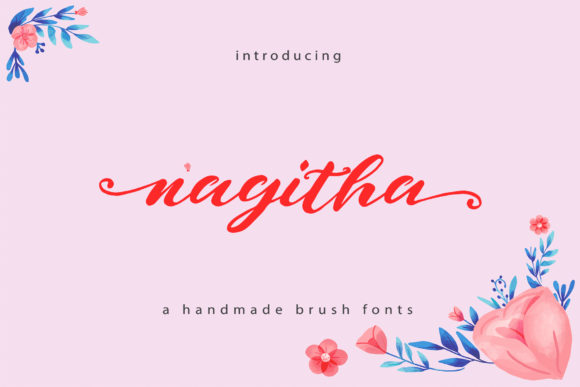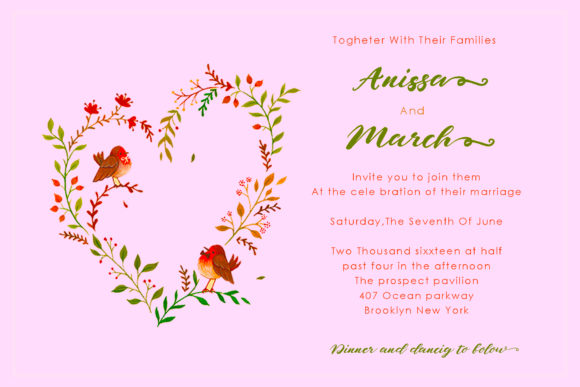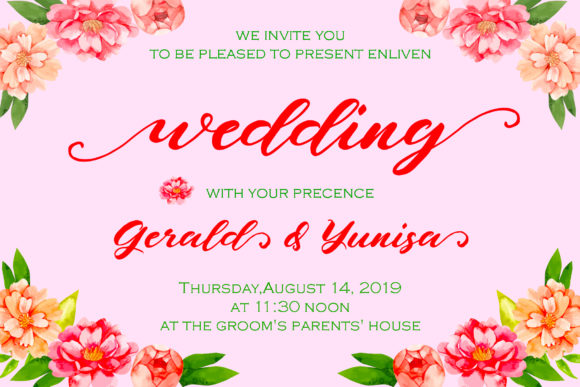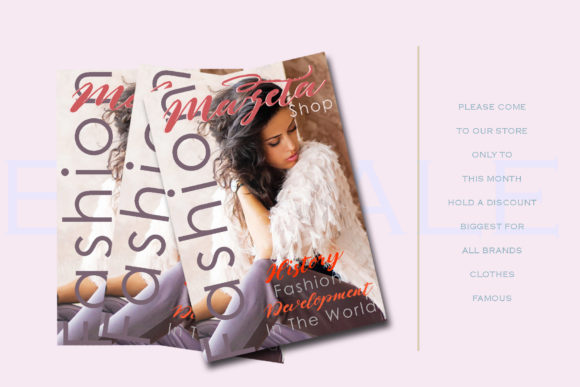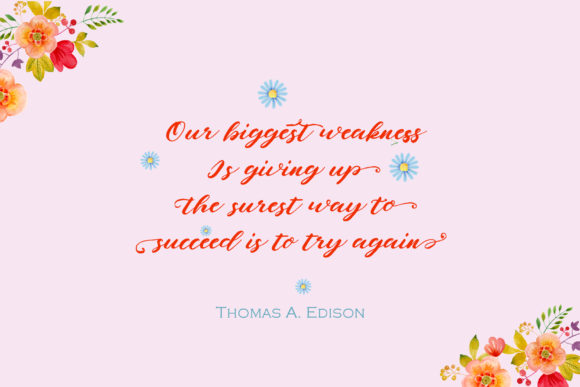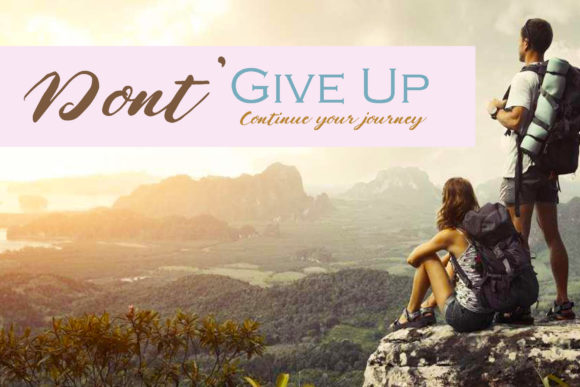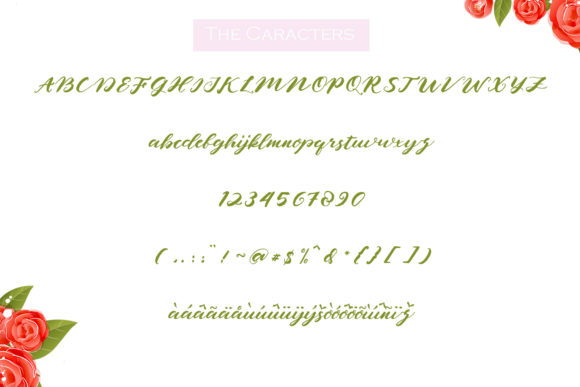
Nagitha Font
About Nagitha Font
The Nagitha is a handmade brush script. It has dancing characters and includes an unique form of calligraphy. It’s natural writing style gives it a simple, yet elegant look.